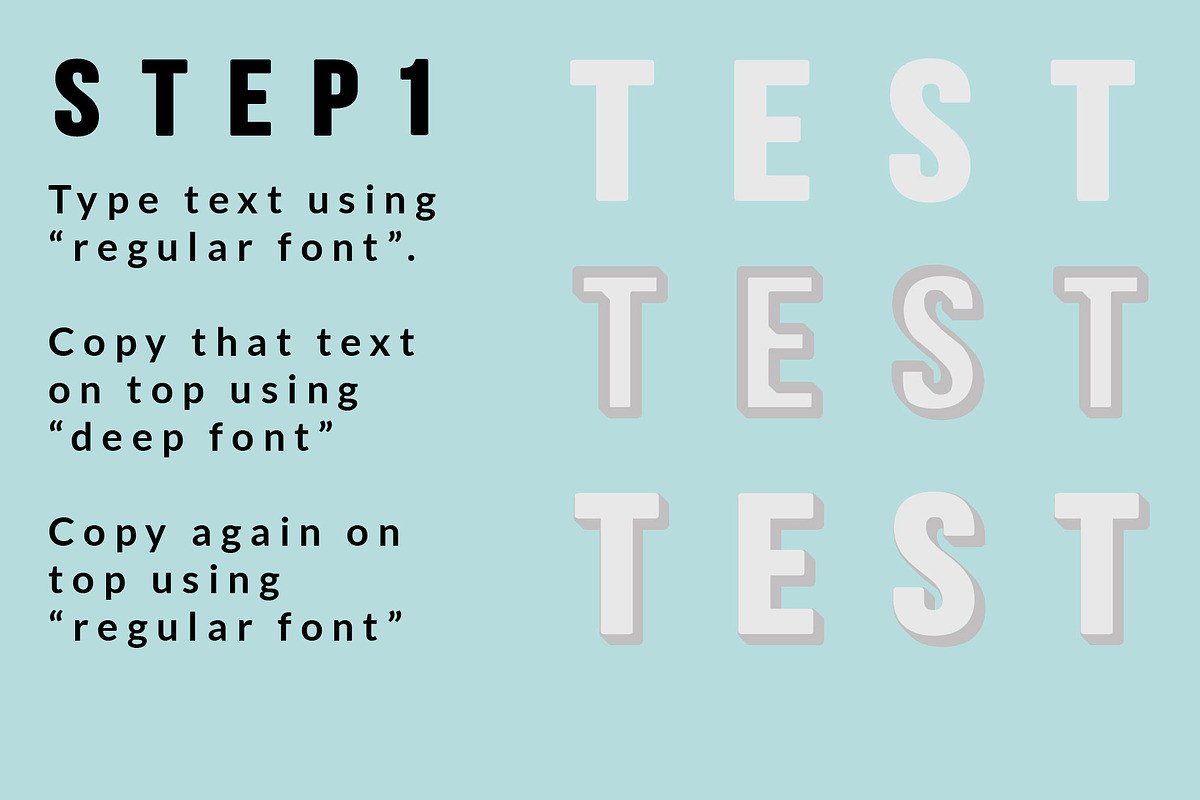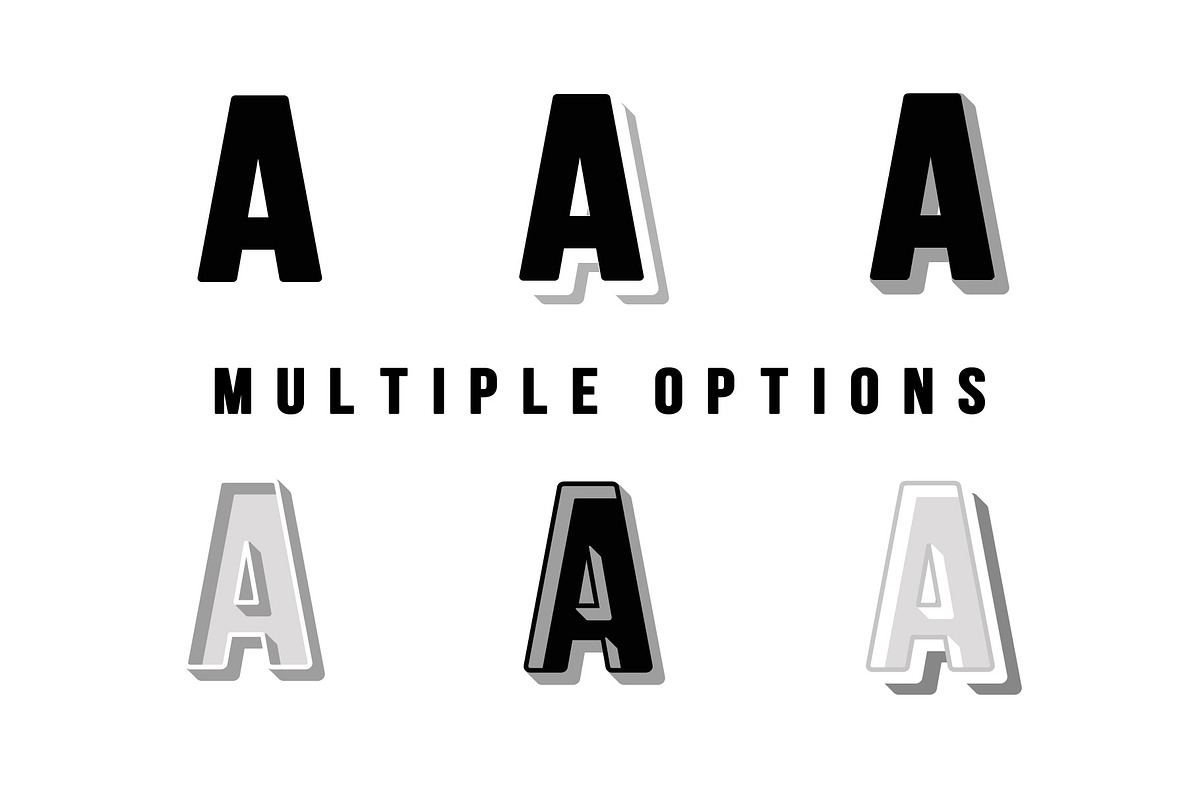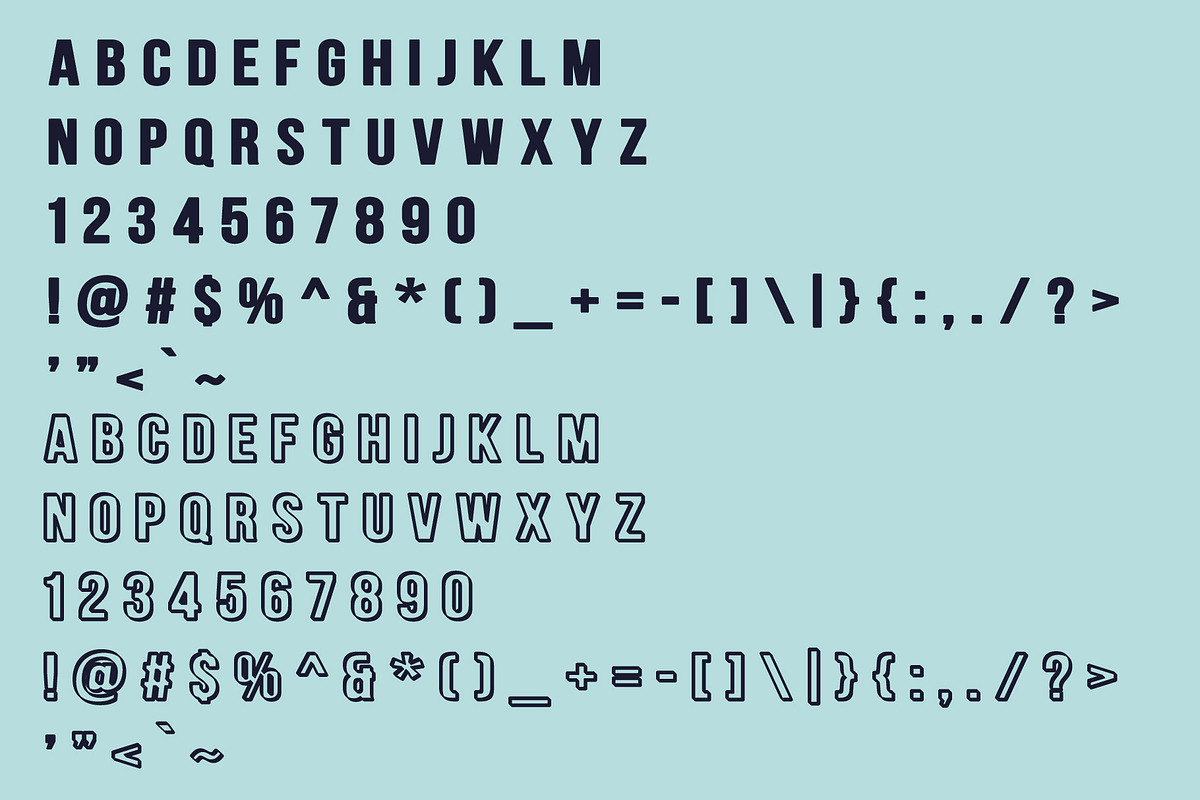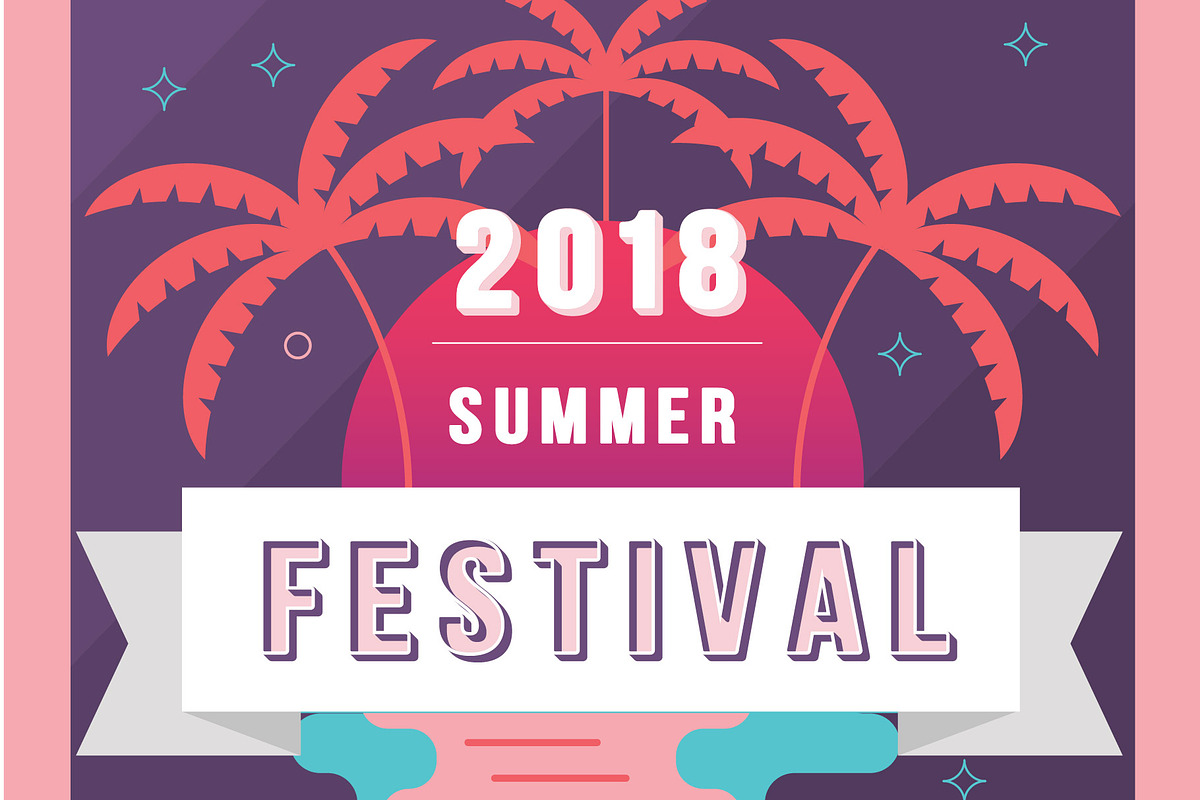
BIG SHOW - Layered 3D font
A simple 2 weight system that can be layered for multiple effects. BIG SHOW is bold with soft rounded corners. Vintage signwriter x fun carnival vibe depending on the colours you use. See instructions in last 2 slides for how to use.
- Big Show Regular
- Big Show Deep